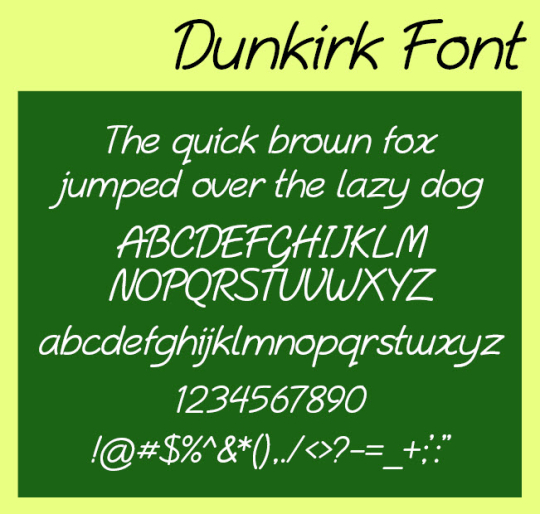
Dunkirk OpenType Font Description
Dunkirk is a fun and readable creative font that can help bring life to any text. Dunkirk includes a full character set (UPPER and lower case), all punctuation, all special characters, Euro symbol, and all Latin Extended-A characters, making this font an essential addition to any collection. Use the Dunkirk font universally for any formal or creative project including invitations, announcements, logo designs, advertisements, banners, signs, presentations, letters, scrapbooks, greeting cards, holiday cards and newsletters and business cards. Dunkirk is an OpenType font designed by the SummitType font foundry, and includes a personal AND commercial use license for up to 2-users.